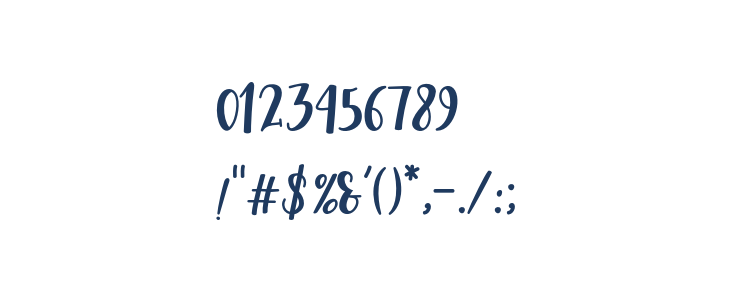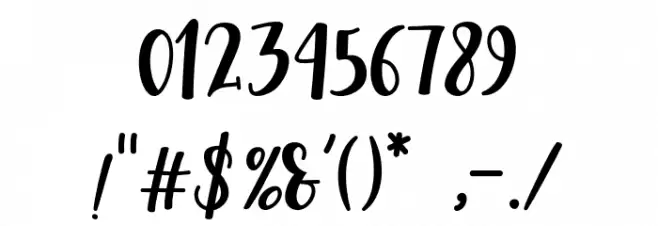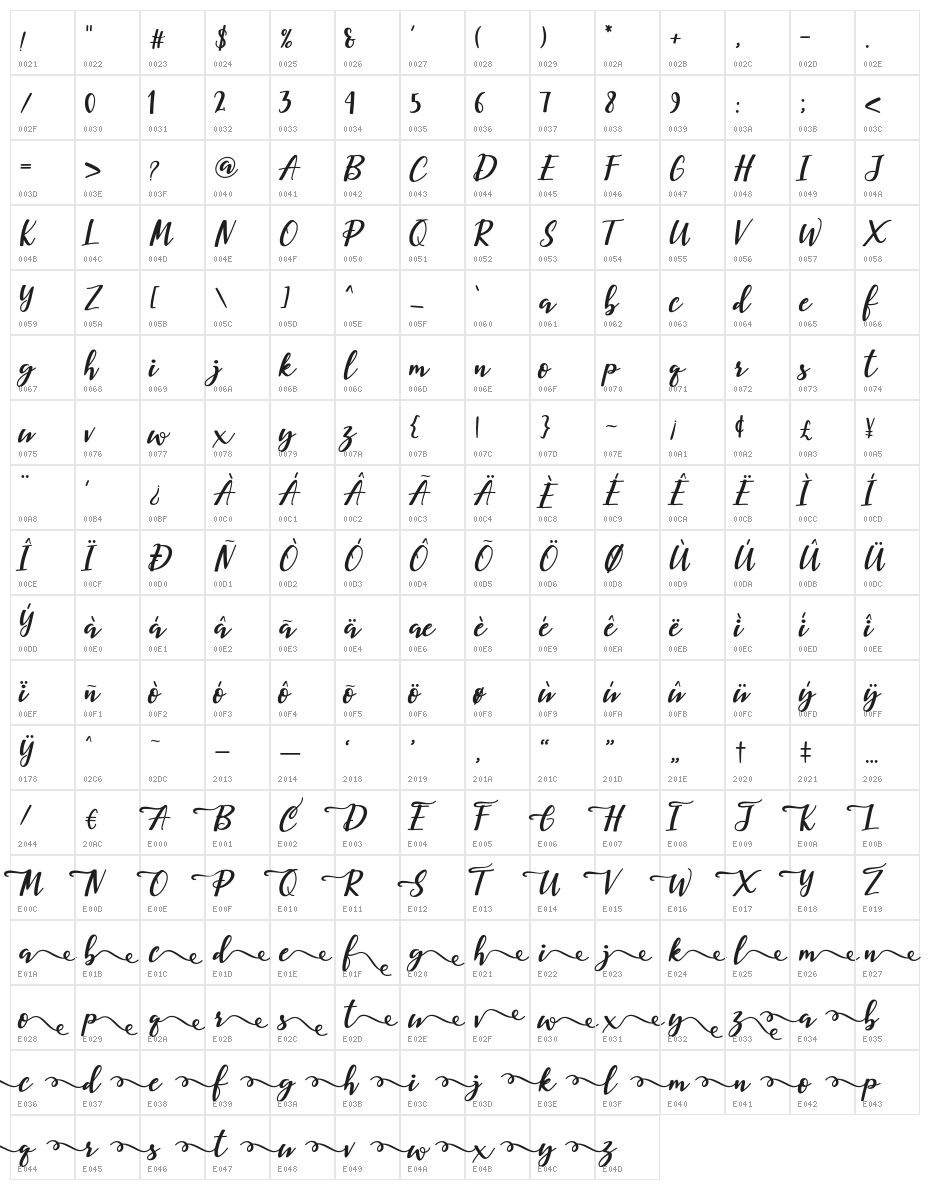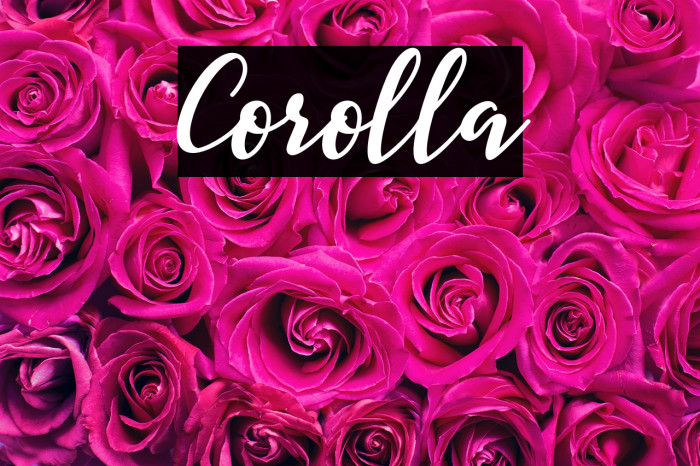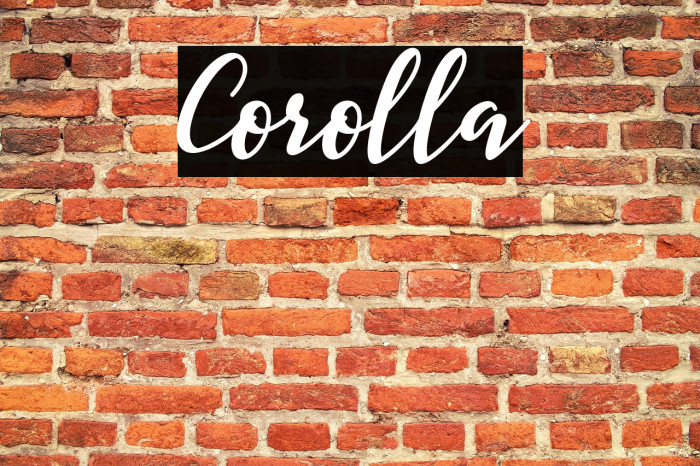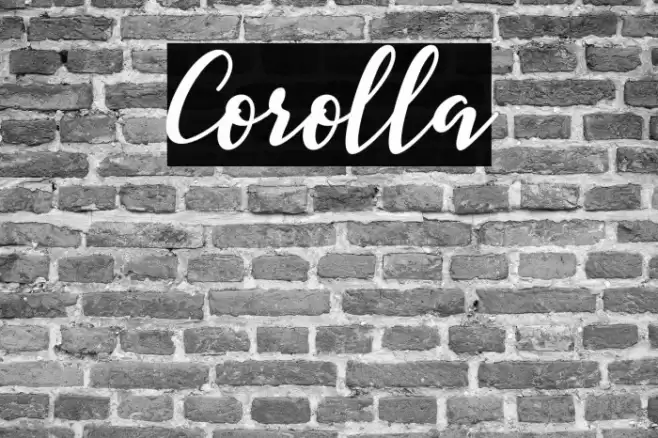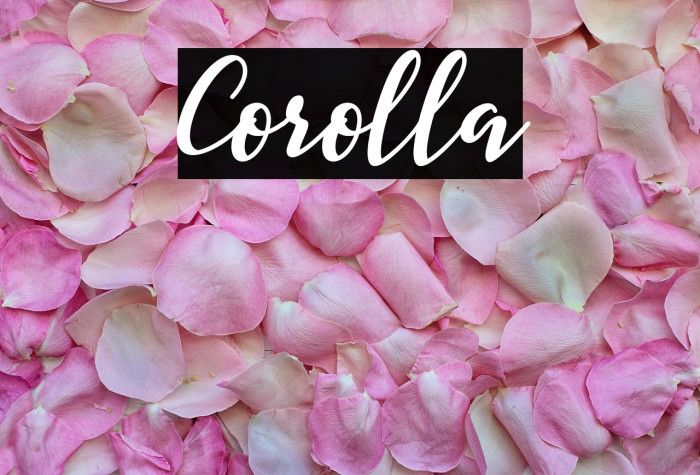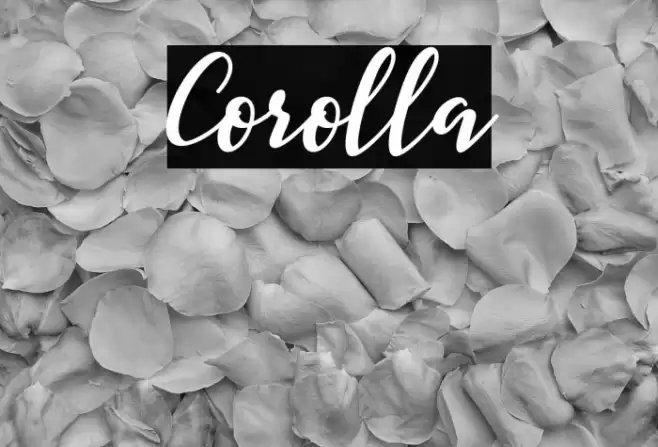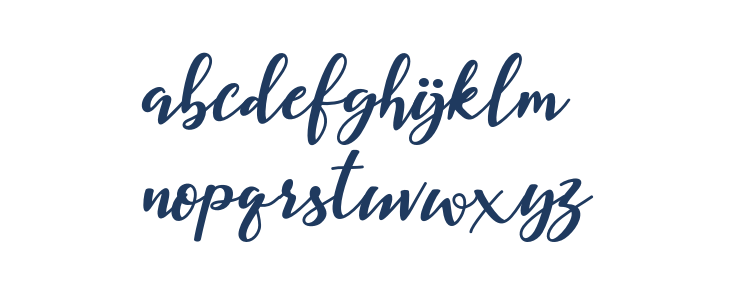
Corolla Font
Corolla Description
This font features a lively and flowing script style, characterized by its elegant and cursive letterforms. The uppercase letters are bold and dynamic, with sweeping curves and a sense of movement. The lowercase letters maintain a consistent flow, with smooth connections between each character, enhancing readability. The numerals are stylish and complement the overall script aesthetic. Special characters are integrated seamlessly, adding to the font's versatility. This font exudes a sense of sophistication and creativity, making it suitable for a variety of design applications.